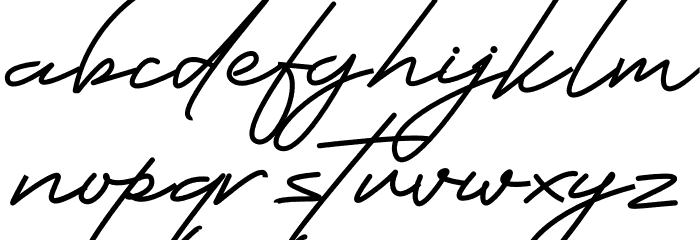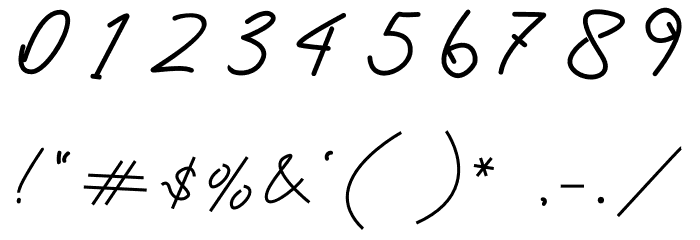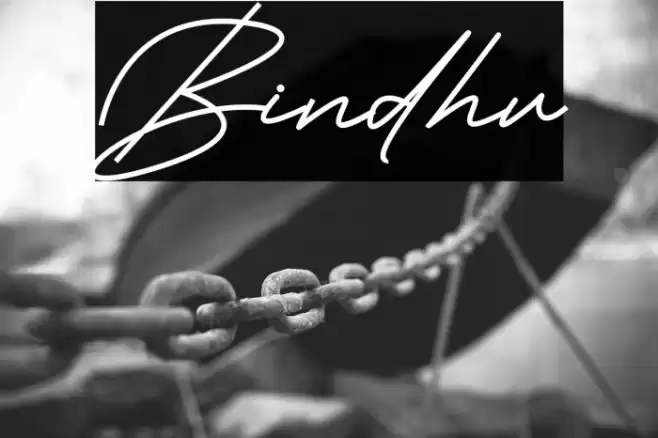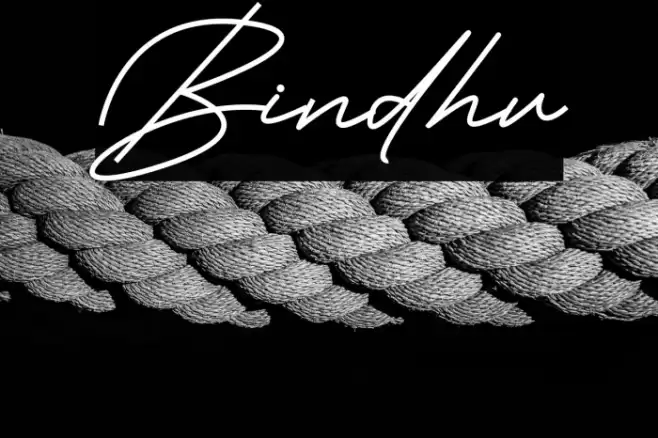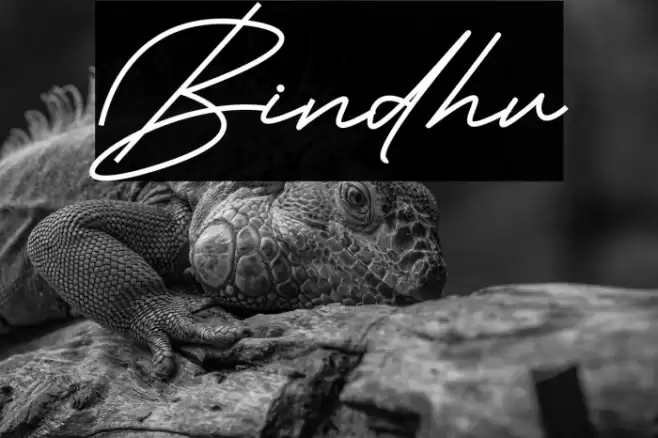
Bindhu Font
This font exudes a fluid and elegant handwritten style, characterized by its smooth, flowing lines and cursive script. The uppercase letters are slightly more angular, adding a touch of sophistication, while the lowercase letters maintain a consistent, graceful curve. The numerals are clear and legible, complementing the overall aesthetic. Special characters are seamlessly integrated, maintaining the font's cohesive look. This font's design is both stylish and versatile, making it suitable for a variety of creative applications.
A fluid, elegant handwritten script with smooth, flowing lines.
- Proposed Projects: Ideal for wedding invitations, personal branding, greeting cards, and elegant logos.
- Overall Style: Elegant
- Use Case: Logos, Invitations, Personal Branding